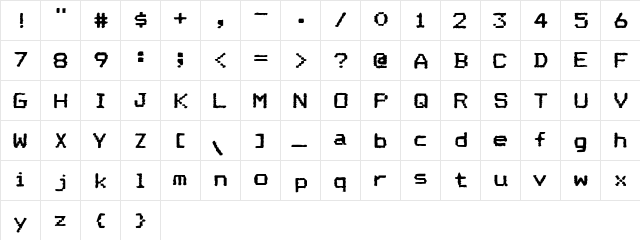
Datmatrix Regular
Design Context for Datmatrix Typeface
Datmatrix offers clean, dependable letterforms without strong stylistic allegiance, making it a practical choice for designers who need flexibility.
Pro Tip: Use Datmatrix in both headline and body roles to test its range before committing to a single application.